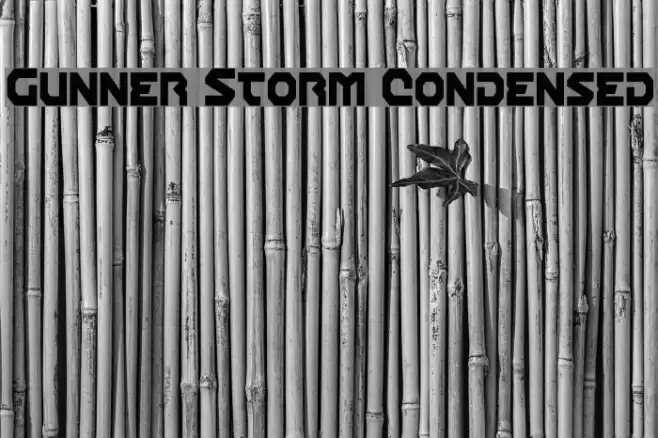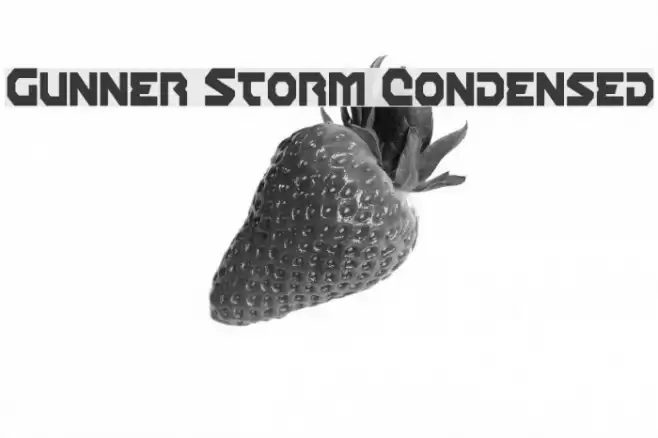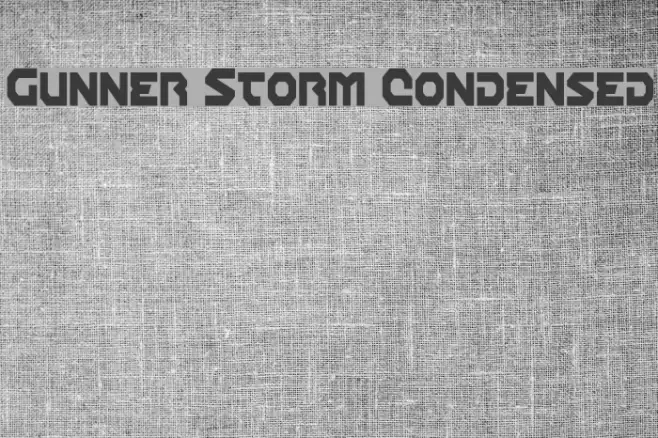
Gunner Storm Condensed Font
Gunner Storm Condensed Description
This font features a bold, geometric design with sharp angles and a condensed structure. The characters are uniformly thick, giving a strong, impactful appearance. The uppercase letters are particularly striking, with a futuristic and industrial feel. The numbers and special characters maintain this bold style, ensuring consistency across all glyphs. The overall aesthetic is modern and assertive, making it suitable for projects that require a strong visual presence. Its condensed width allows for efficient use of space, making it ideal for headlines or titles where impact is key.
A bold, geometric, and condensed font with a modern, industrial aesthetic from Uncategorized fonts.
- Proposed Projects: Ideal for branding, posters, video game graphics, and any project needing a strong, modern look.